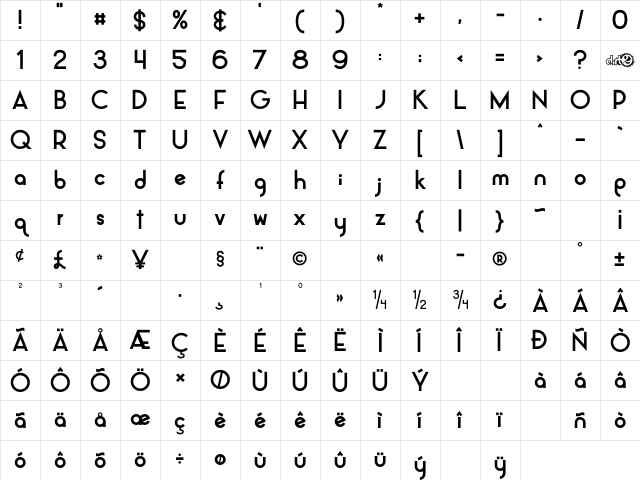
Alpaca Scarlett Demo Regular Free Font
Alpaca Scarlett Demo Regular
Alpaca Scarlett Demo Family
Alpaca Scarlett Demo Regular
Complete Alpaca Scarlett Demo Regular glyph index. Displaying only characters natively supported by Alpaca Scarlett Demo Regular font.
Design Context for Alpaca Scarlett Demo
Alpaca Scarlett Demo is a composed and adaptable typeface that performs quietly and consistently across a wide range of design contexts.